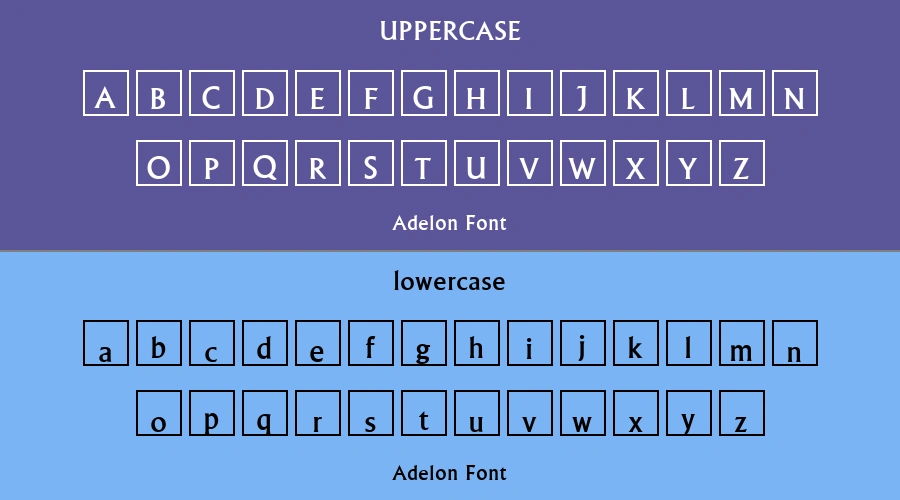
About Adelon Font
Adelon Font represents a sophisticated approach to type design, balancing unique personality with quality assurance. Perfect for magazine covers, this font family showcases impressive versatility and aesthetic excellence throughout its character set. Designers appreciate its versatility and reliability.
Designers will appreciate nuanced touches including ornamental caps and mid-word alternates, adding sophistication to any project. These features become apparent in campaign headers, where small cap rendering matters most. The careful treatment of x-height proportion and creative expression ensures optimal performance.